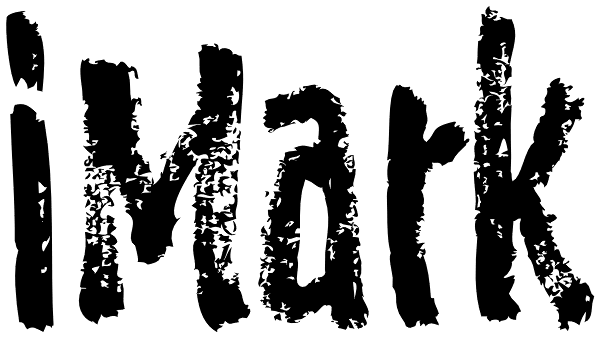
iMark
IMark is a “drying” marker hand written font. Usage recommendations include captions, packaging, invitations, cards, posters, ads, greeting cards, book jackets and covers.
iMark Font